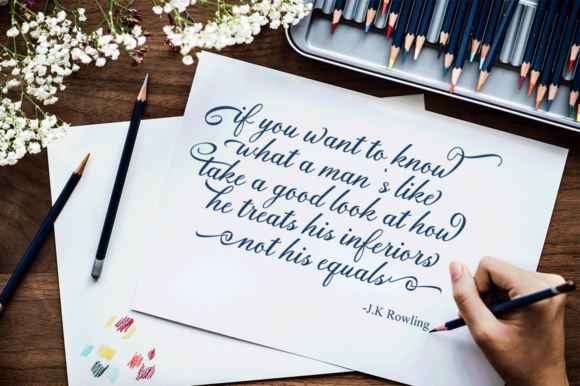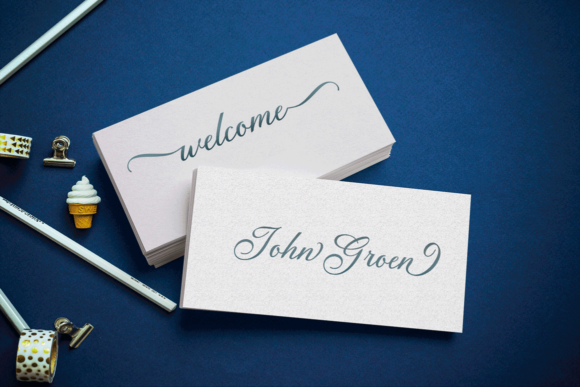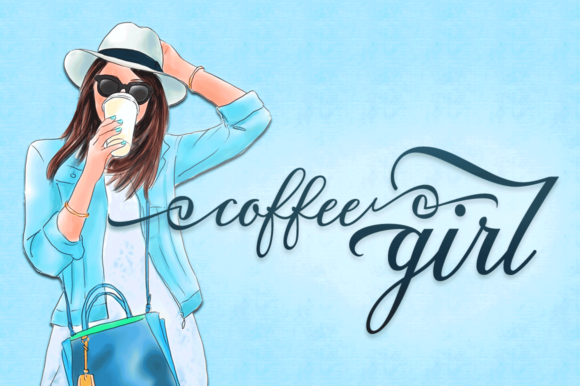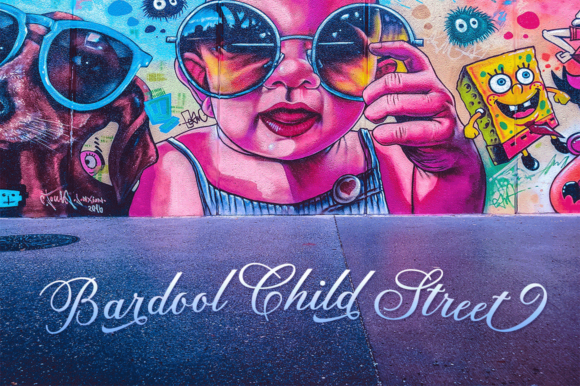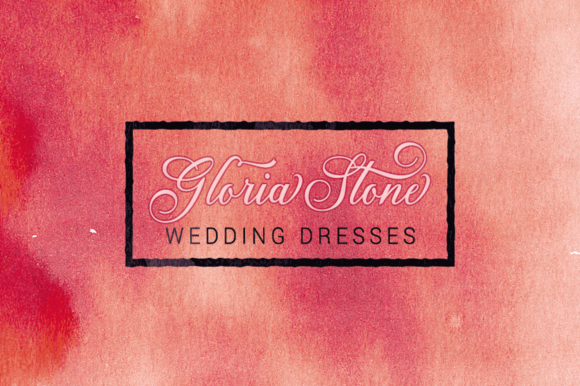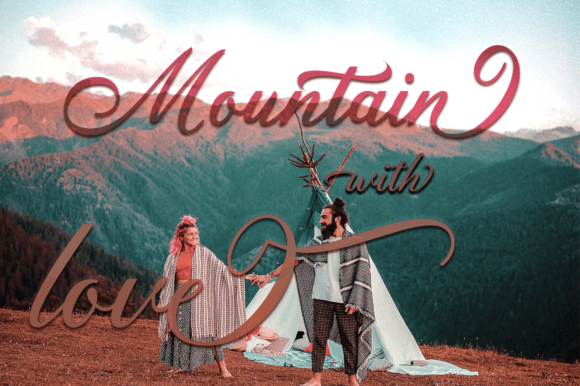
The Elegant Anatomia Script Font: A Designer’s Delight
I’ll never forget the time I was working on a wedding invitation project, and my client asked me to create a custom design that exuded elegance and sophistication. As I began searching for the perfect font, I stumbled upon the beautiful Anatomia script font. Its lovely style, elegant letters, and modern feel immediately caught my attention. I knew right then and there that I had found the perfect fit for my project.
An Honest Review of Anatomia Script Font
- 💫 Elegant and modern design that adds a touch of sophistication to any project
- 🎨 Versatile and suitable for a wide range of design projects, from wedding invitations to branding and packaging
- 🔍 Beautifully crafted letters with intricate details and subtle flair
- ⚠️ Limited availability of certain OpenType features, such as ligatures and stylistic alternates
- 🤔 May not be the best choice for body text or long-form content due to its script nature
The Story Behind Anatomia Script Font
Anatomia script font was designed by a team of typographers who aimed to create a beautiful and elegant font that would add a touch of sophistication to any design project. Inspired by traditional calligraphy and modern digital design, Anatomia features intricate details and subtle flair that make it perfect for creative projects.
| Font Name | Anatomia Script Font |
| Author | Fajry’s Type |
| What is the best use for Anatomia script font? | Anatomia script font is best used for creative projects that require a touch of elegance and sophistication, such as wedding invitations, branding, and packaging. |
| Is Anatomia script font suitable for body text? | No, Anatomia script font is not recommended for body text or long-form content due to its script nature. It’s best used for headlines, titles, and short-form content. |